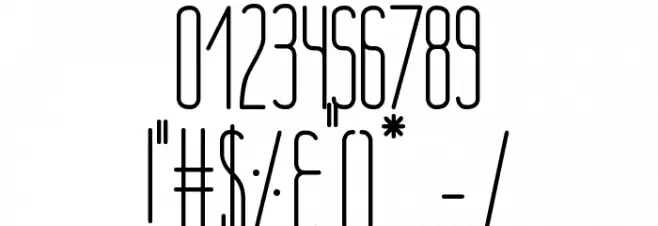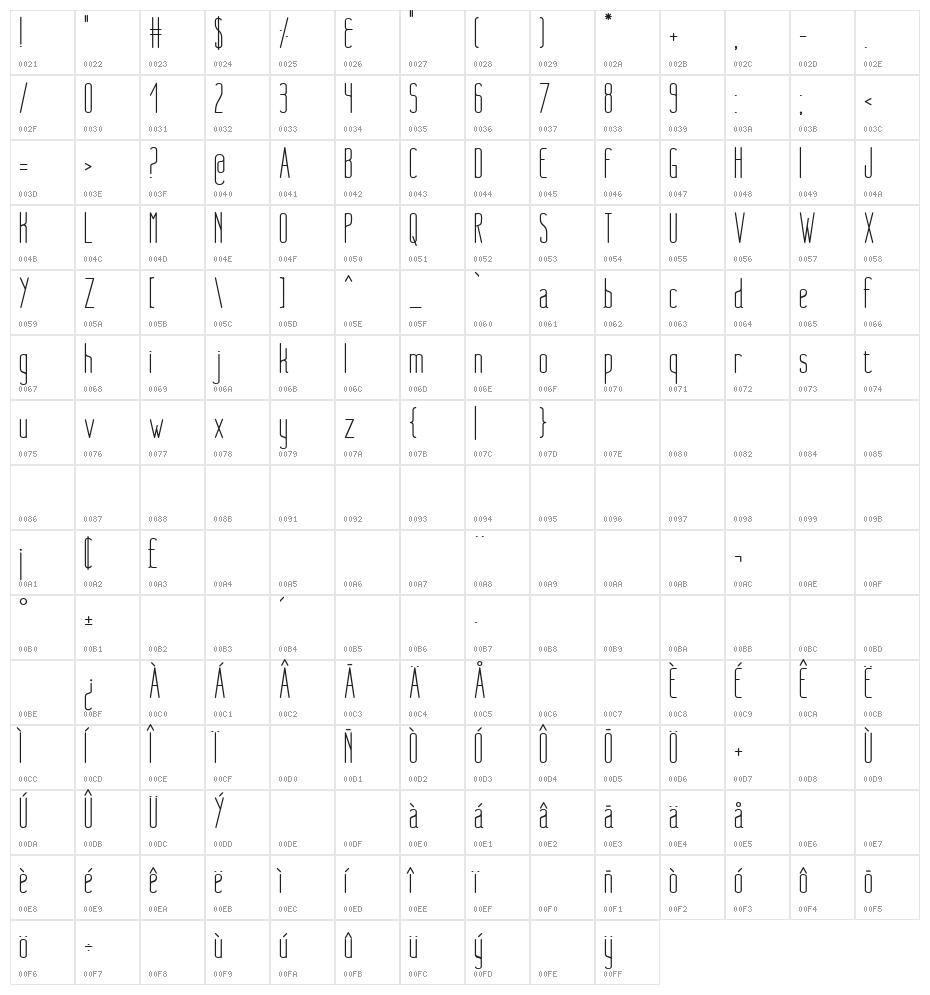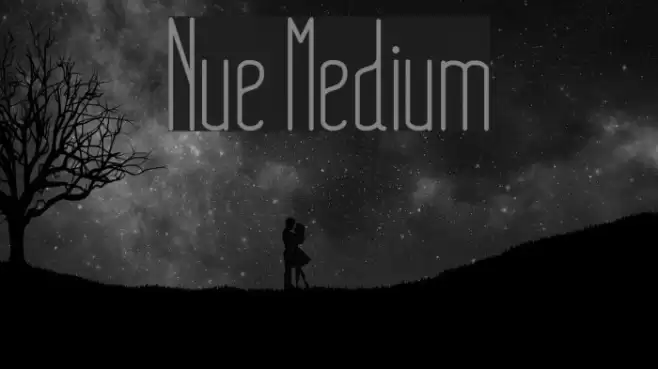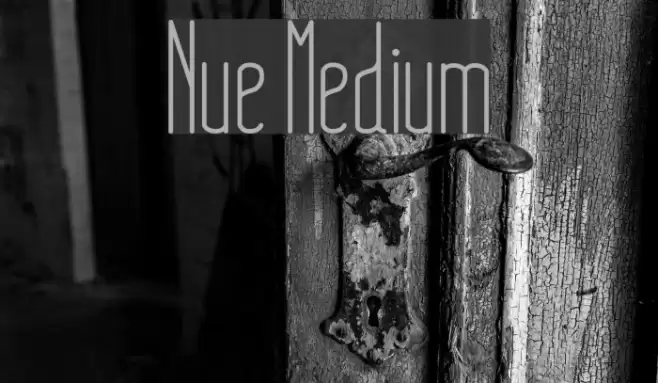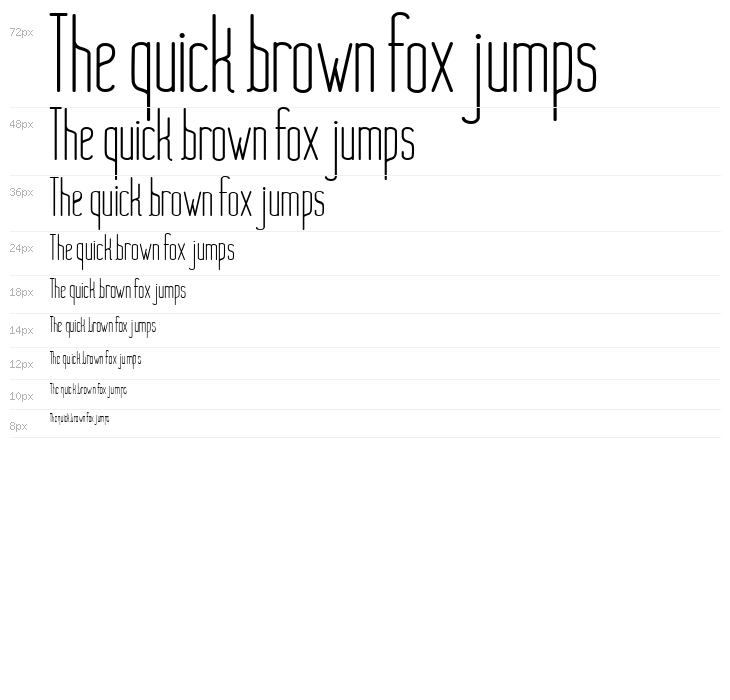
Nue Medium Font
Nue Medium Description
This font features a sleek, elongated design with a modern and minimalist aesthetic. The characters are tall and narrow, giving them a distinctive and elegant appearance. The uppercase letters are uniform in height, while the lowercase letters maintain a consistent style that complements the uppercase. The numerals are similarly elongated, maintaining the overall aesthetic of the font. Special characters are included, matching the font's clean and streamlined look. The thin lines and consistent stroke width contribute to a sense of sophistication and modernity.
| Proposed Projects | Ideal for modern branding, fashion magazines, minimalist posters, and contemporary web design. |